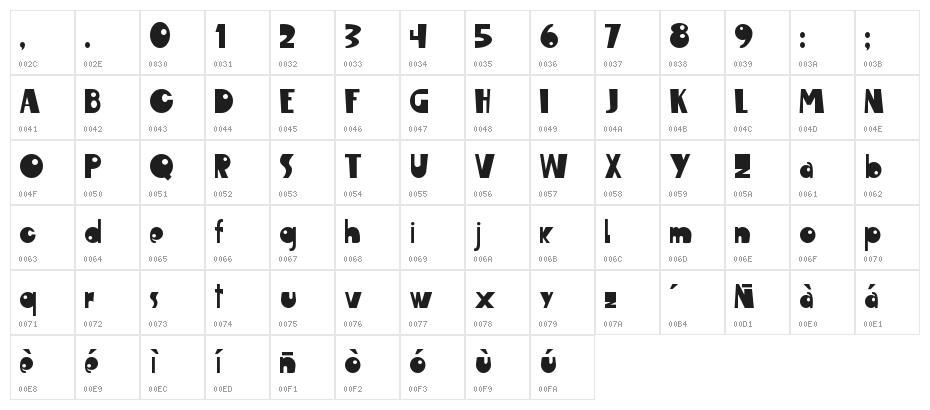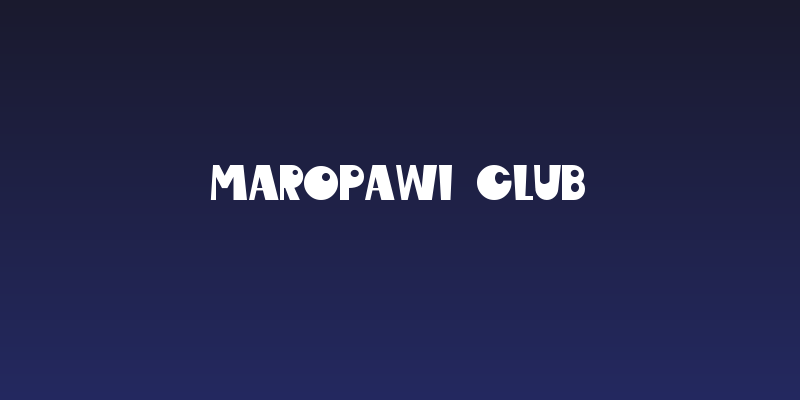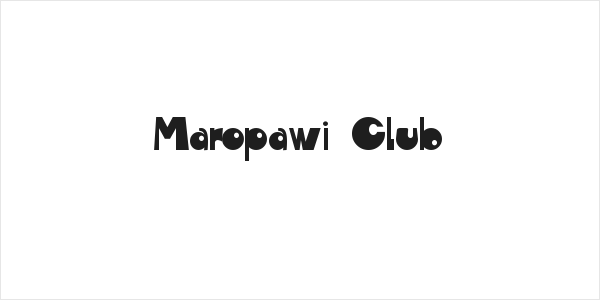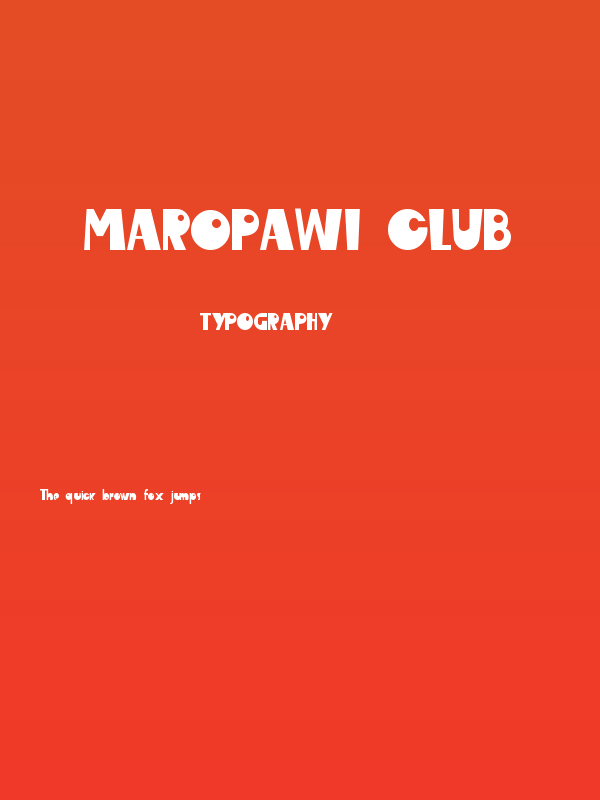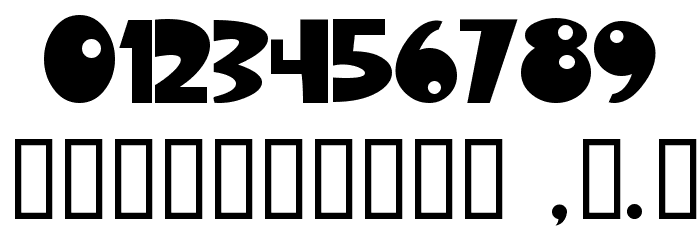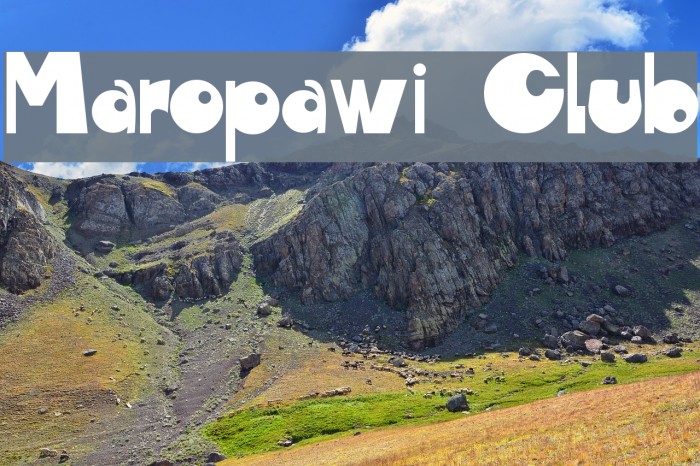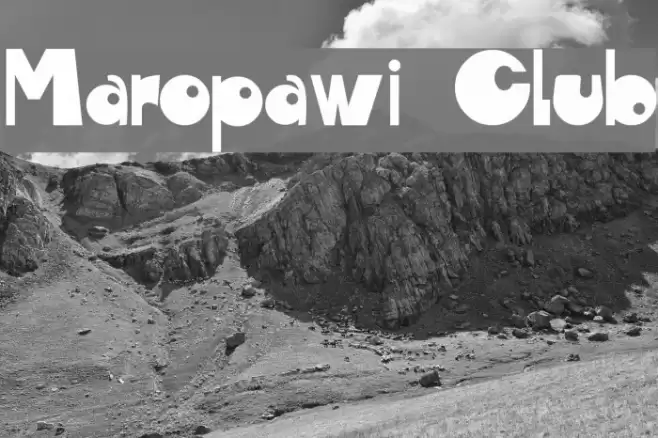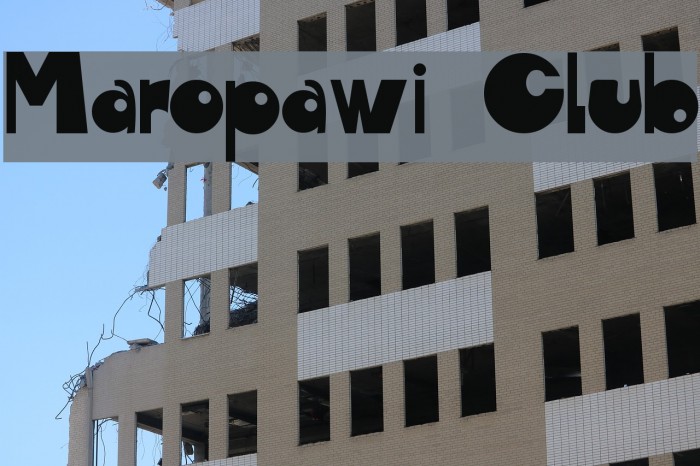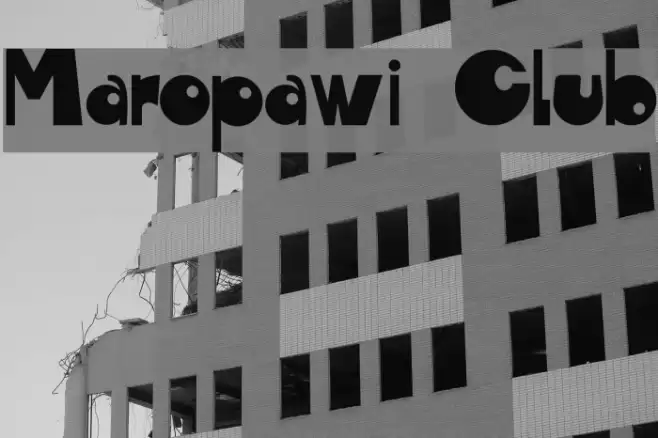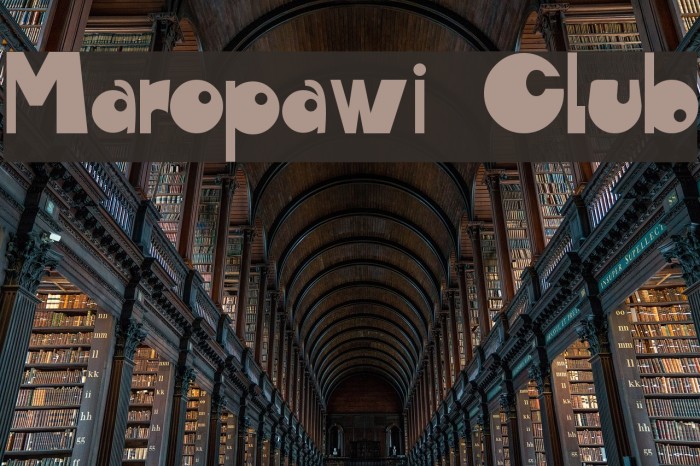
Maropawi Club Font
Maropawi Club Description
This font features a bold and playful design with a strong geometric influence. The uppercase letters are characterized by their thick, uniform strokes and angular shapes, giving them a modern and assertive appearance. The lowercase letters maintain a similar boldness but introduce more curves, adding a touch of softness to the overall look. The numerals are rounded and consistent with the bold style, ensuring readability and impact. Special characters are designed with the same geometric precision, making them stand out. This font's unique style makes it ideal for creative and eye-catching projects.
| Proposed Projects | Ideal for posters, logos, branding, and any project requiring a strong visual impact. |